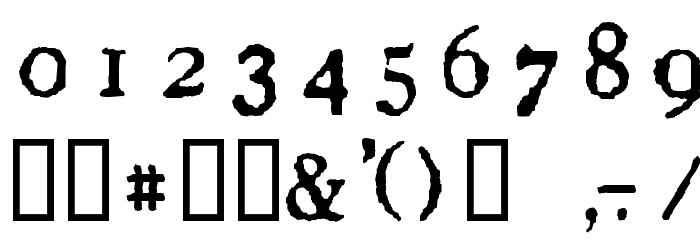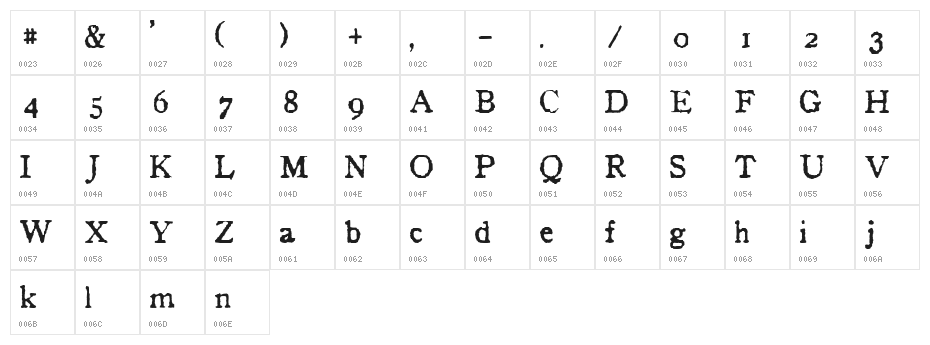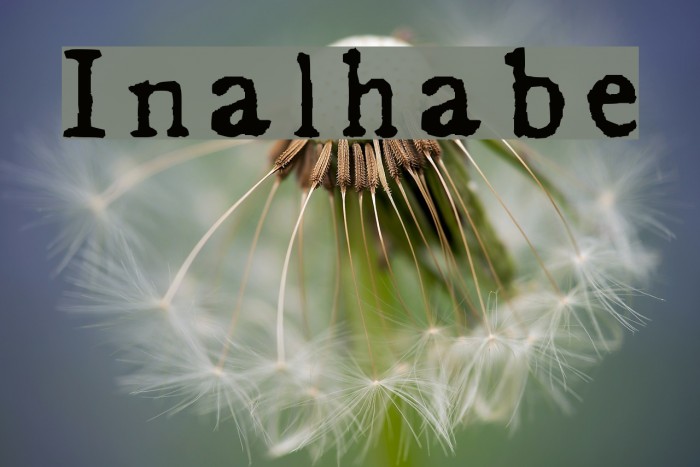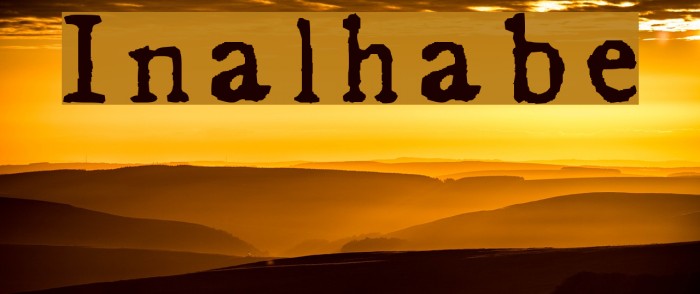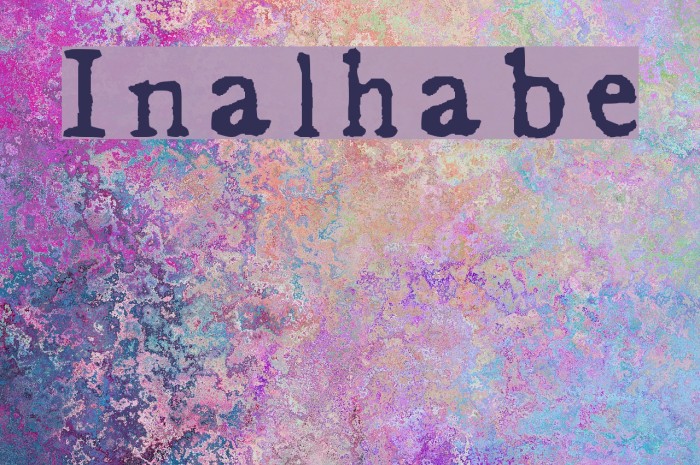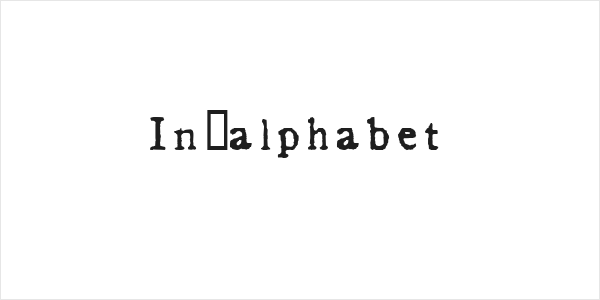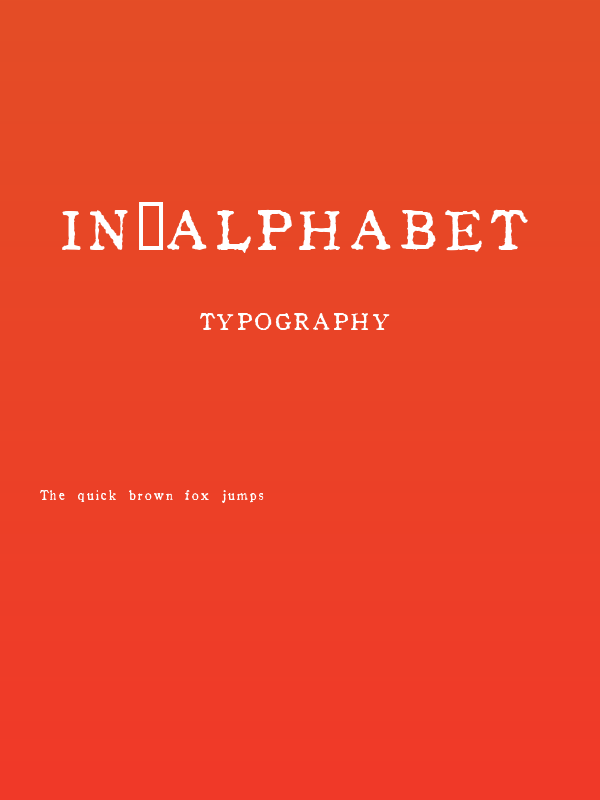
In_alphabet Font
In_alphabet Description
This font exhibits a classic serif style with a slightly distressed appearance, giving it a vintage and timeless feel. The characters are well-defined with moderate contrast between thick and thin strokes, adding to its readability and elegance. The serifs are pronounced, contributing to a traditional aesthetic, while the slightly irregular edges suggest a hand-crafted or printed look. This font is versatile, suitable for projects that require a touch of sophistication and historical charm. The numerals and special characters maintain the same stylistic features, ensuring consistency across all text elements.
| Proposed Projects | Ideal for book covers, historical documents, branding for vintage products, and invitations. |